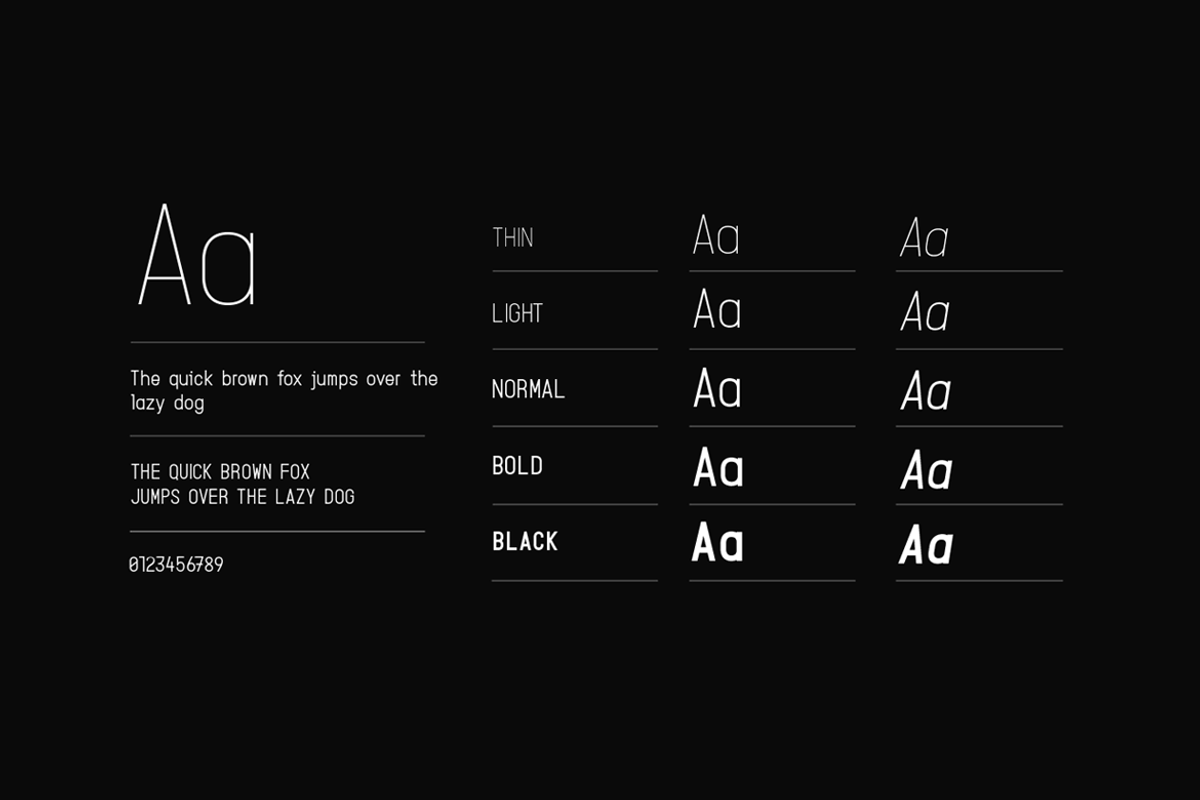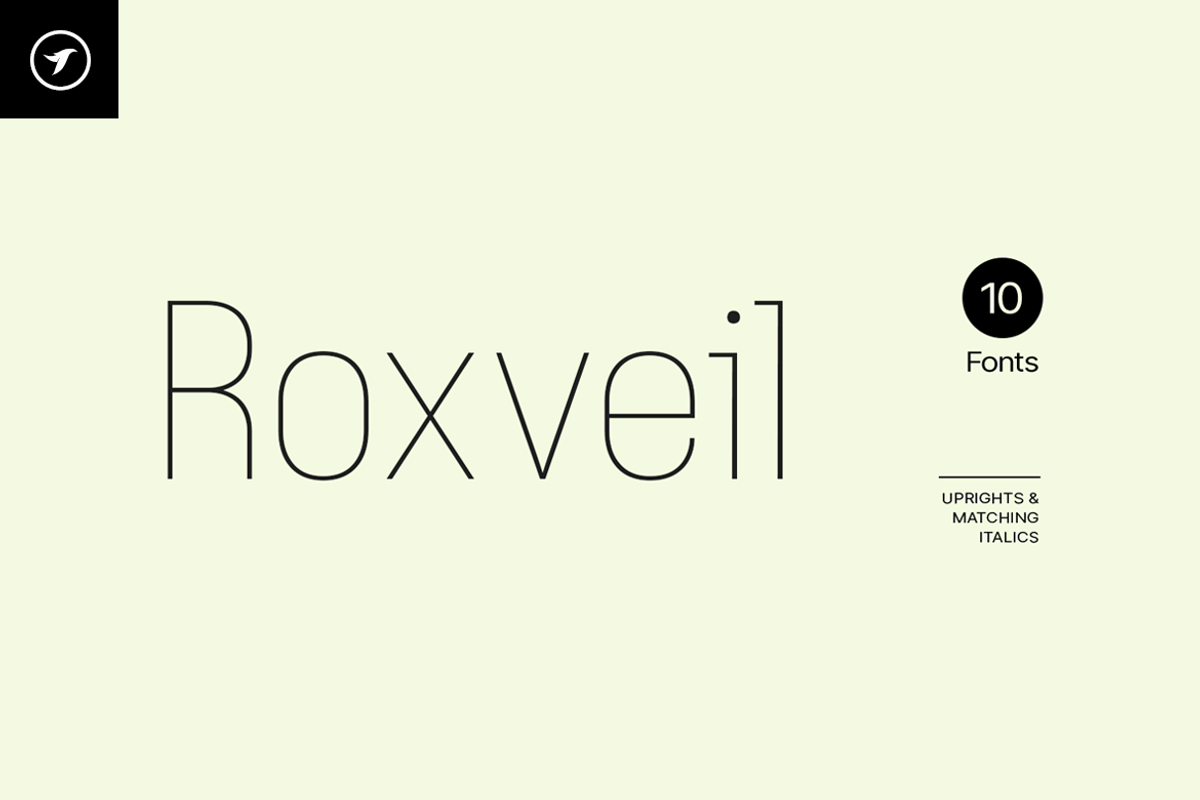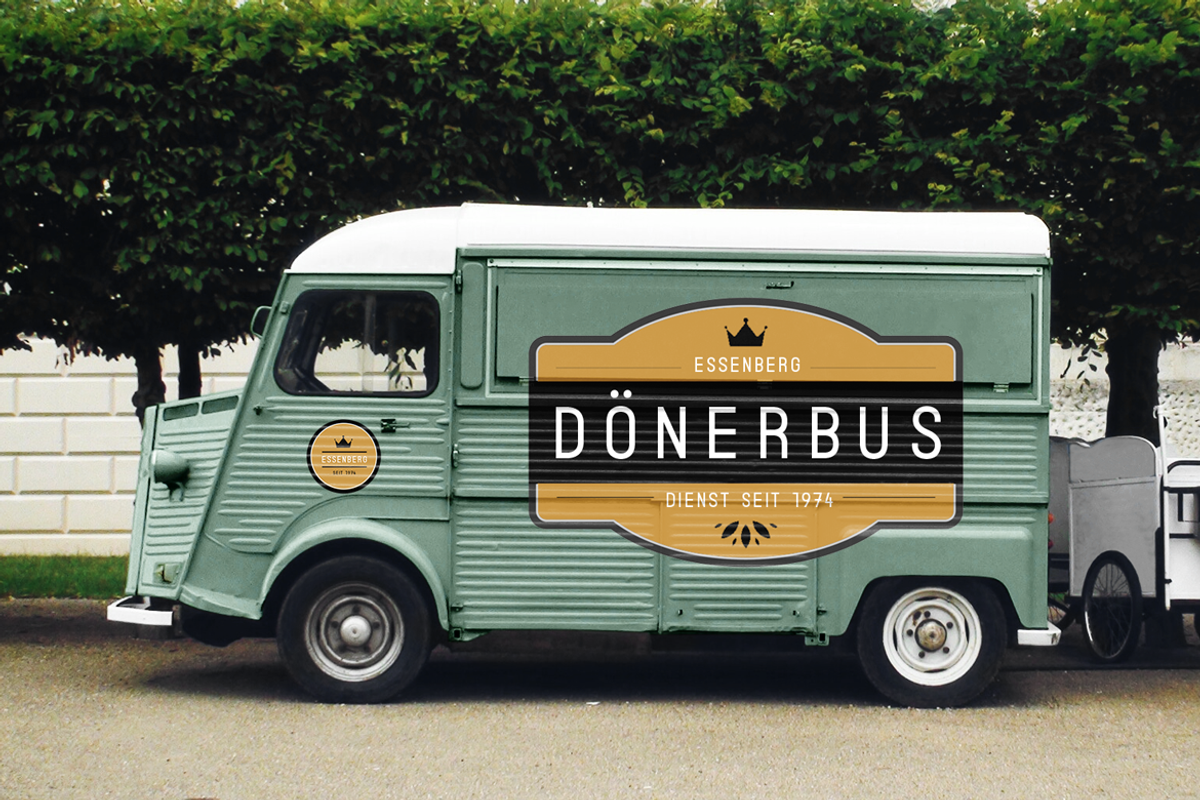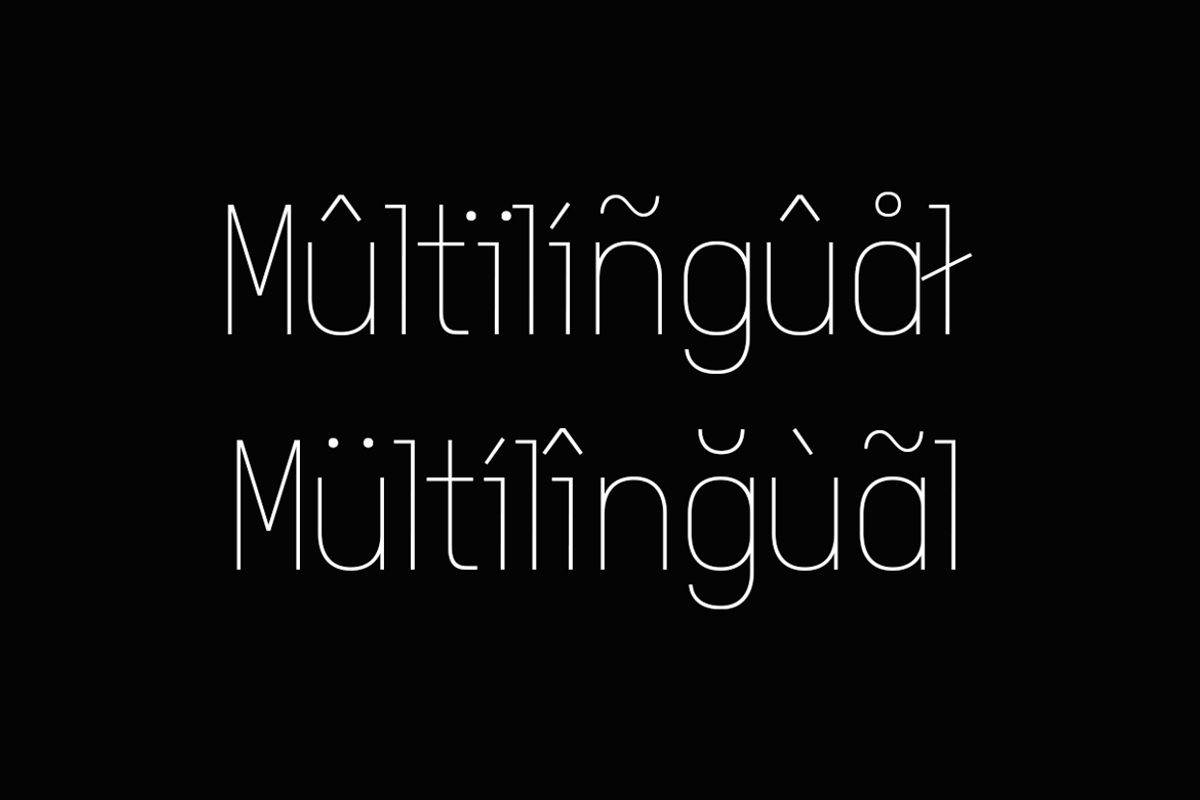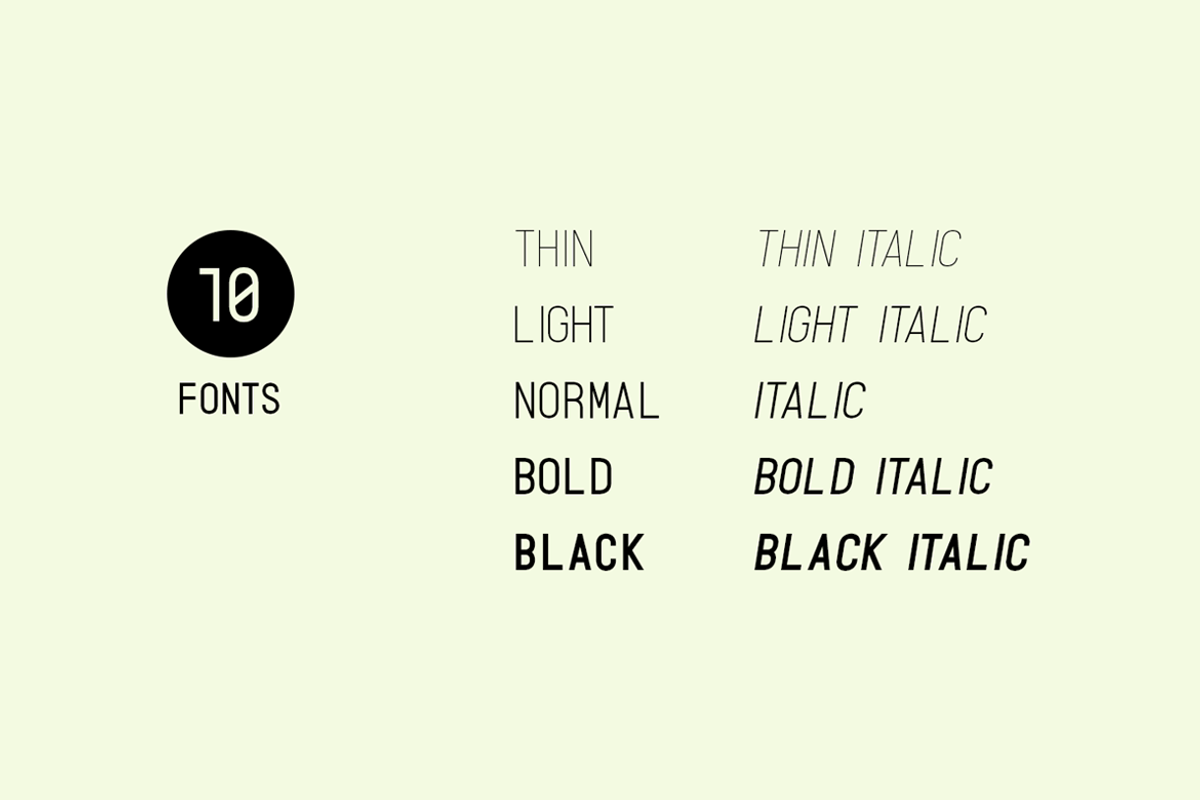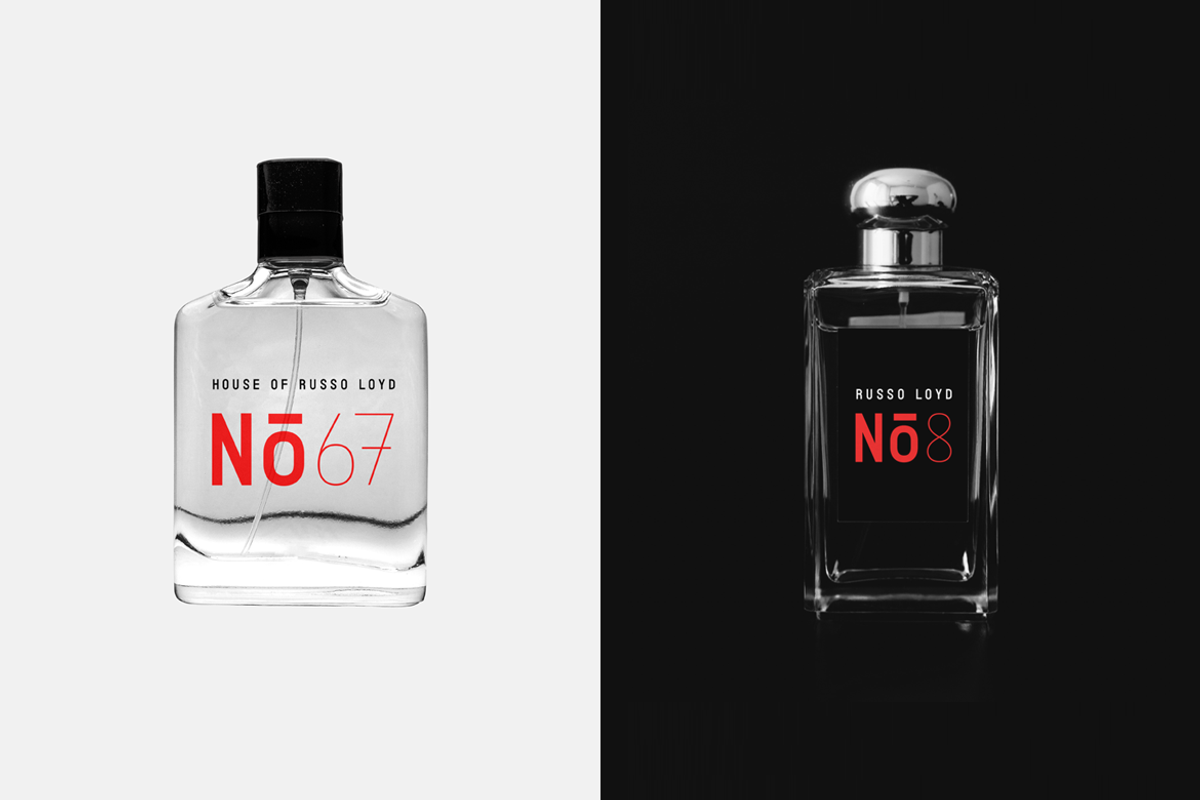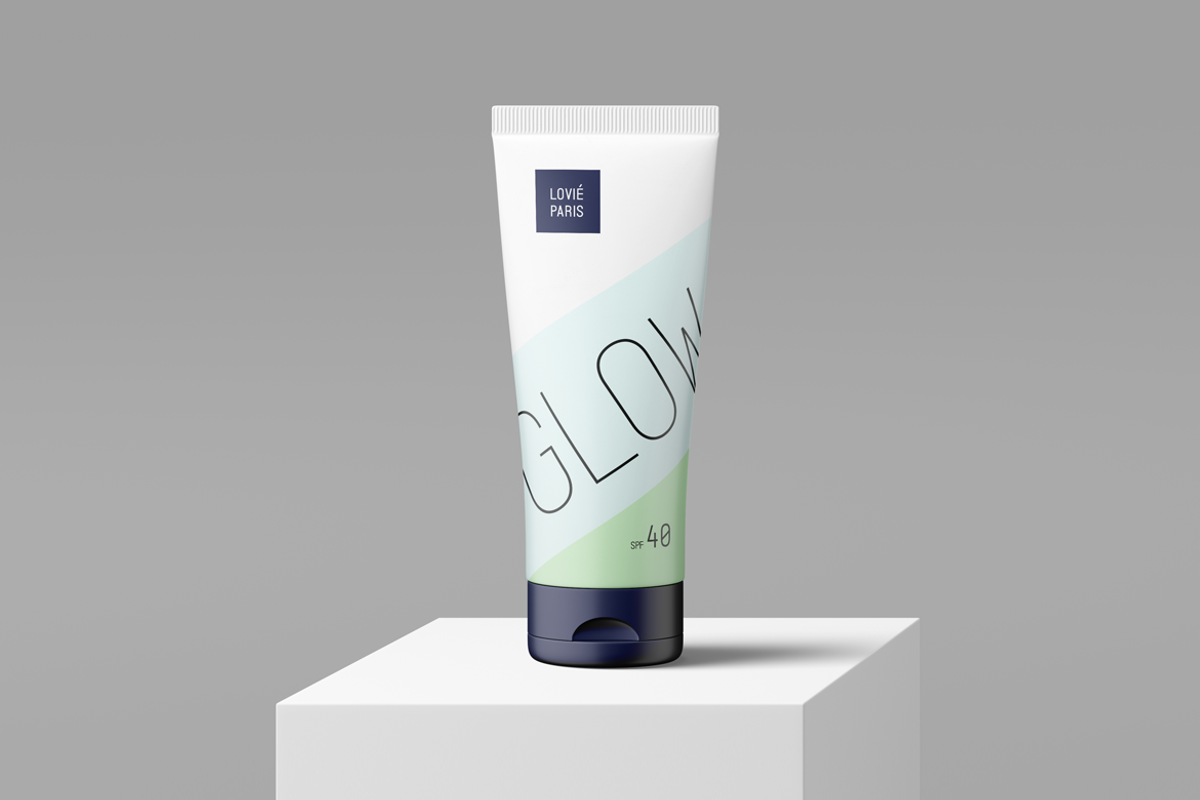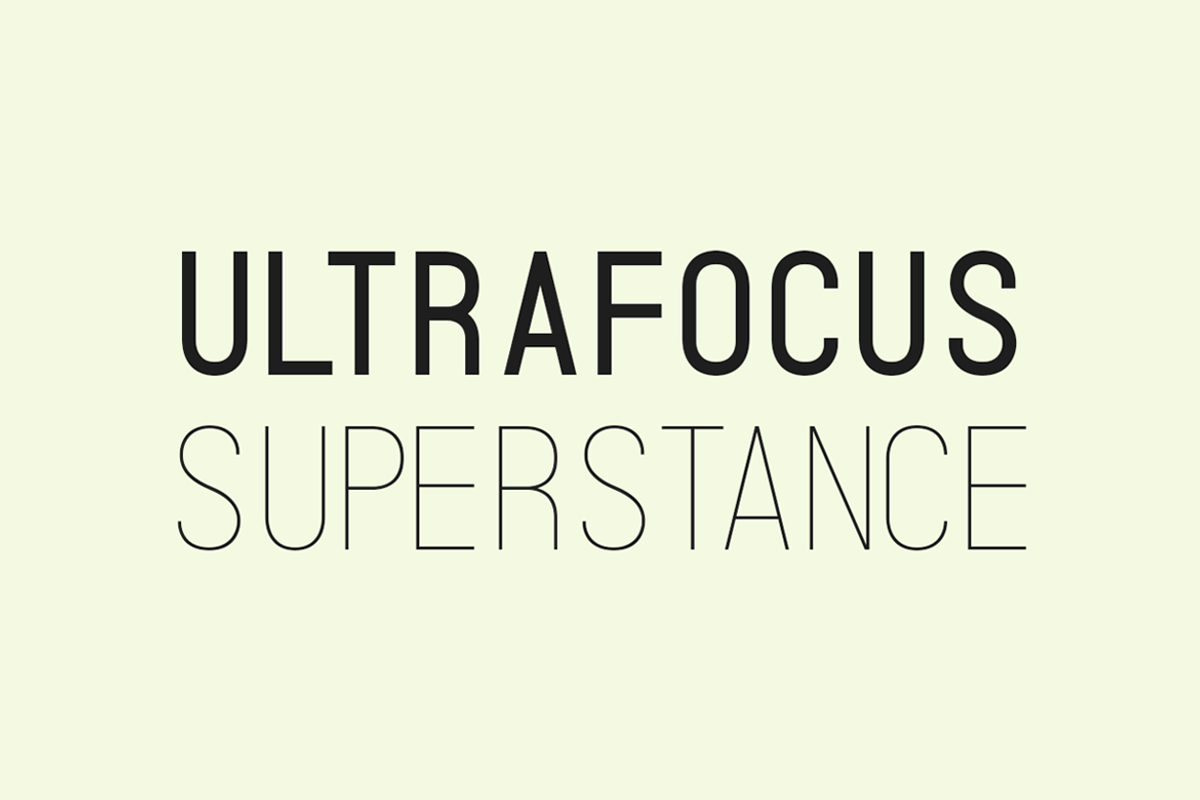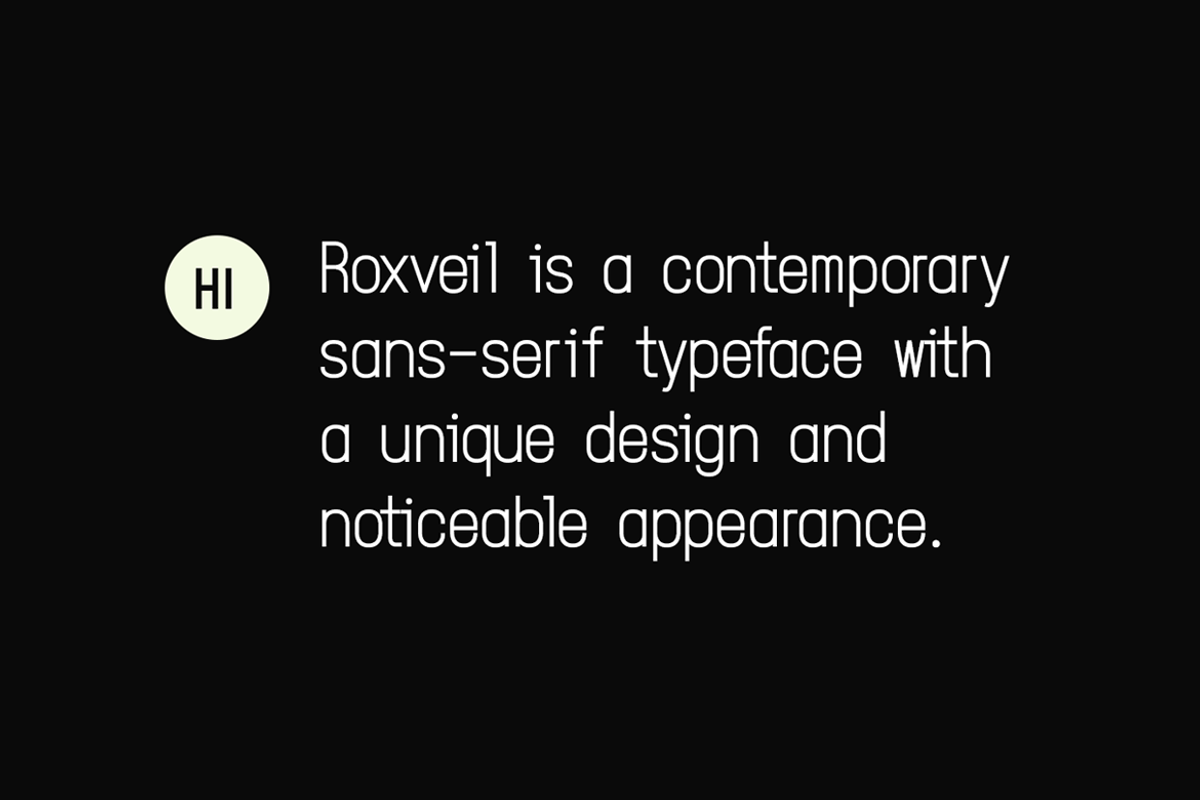
ROXVEIL - Unique Display Font
Roxveil is a unique display typeface perfect for headlines, big text, brandings, logotypes & graphic design purposes such as posters, flyers and advertisements. This font can be an excellent choice for creating outstanding logos, promotional content, and marketing presentations that bring uniqueness and freshness at its best.
The font is very flexible in terms of your creativity, you can adjust the letterspacing to design unique textual presentations, especially for creating amazing logotypes and branding designs. Please see the examples shown above to get an idea of the capability of this typeface.
Roxveil comes with extended language support including Western European, Central European, and South-Eastern European character sets (a total of 242 glyphs).
The Roxveil family includes 10 fonts (Thin / Light / Normal / Bold / Black). The pack contains OTF, and TTF as Desktop fonts and optional Web Fonts (all EOT, SVG, TTF, WOFF, and WOFF2 formats included) as licensing options.